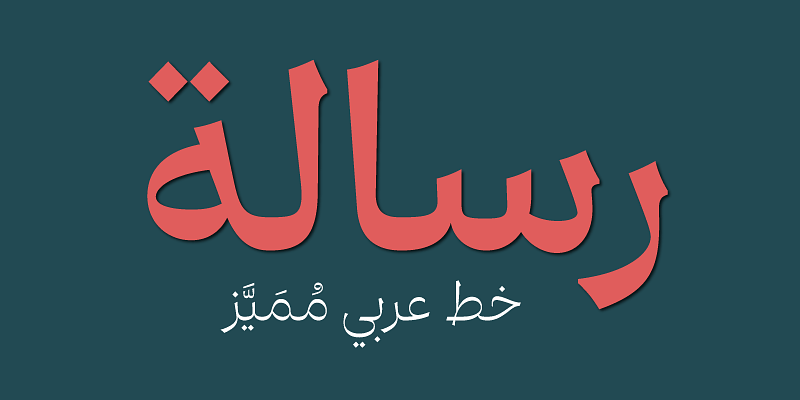
Risala Font Free Download is a contemporary Arabic typeface that combines modern clarity with the elegance of traditional calligraphic roots. Designed for both digital and print applications, Risala is ideal for editorial content, cultural publications, branding, signage, and any design that requires high-quality Arabic typography with a refined and balanced feel.
With smooth curves, generous spacing, and a harmonious rhythm, Risala Font Free Download offers excellent legibility in both large headings and smaller text settings. It carries a professional, polished tone while maintaining a warm, approachable character—making it versatile across various design contexts.
What makes Risala stand out is its modern construction that doesn’t compromise on the fluidity of Arabic script. Whether paired with Latin fonts in bilingual layouts or used on its own in Arabic-focused projects, Risala ensures typographic consistency and visual appeal.
Elegant, legible, and culturally respectful, Risala is a thoughtful and powerful typeface choice for designers working in or alongside Arabic script. It brings together beauty and usability in one refined package.